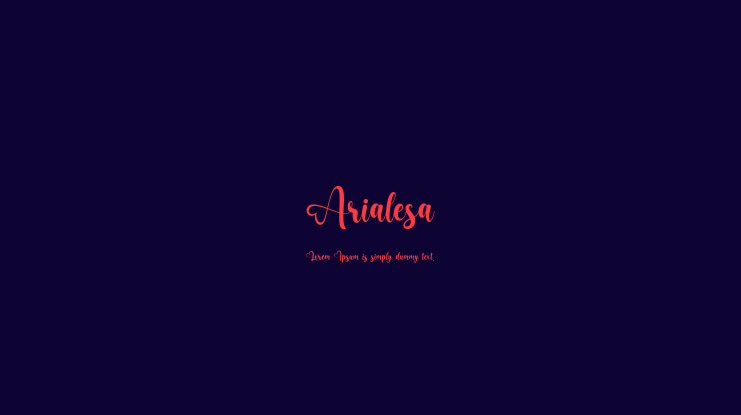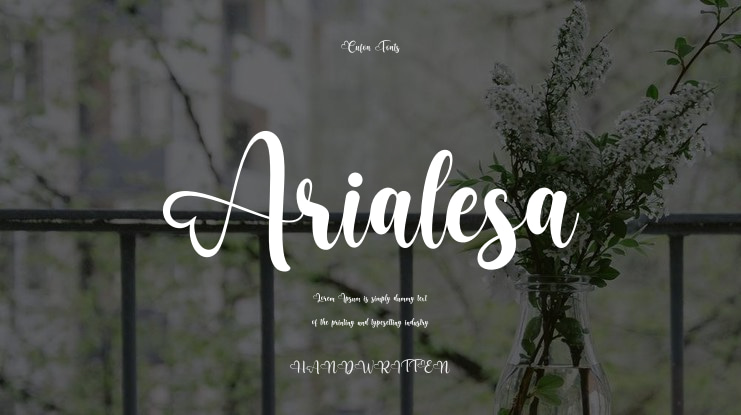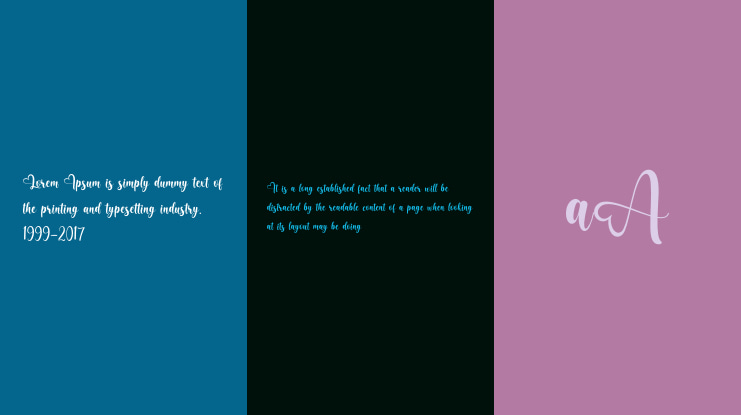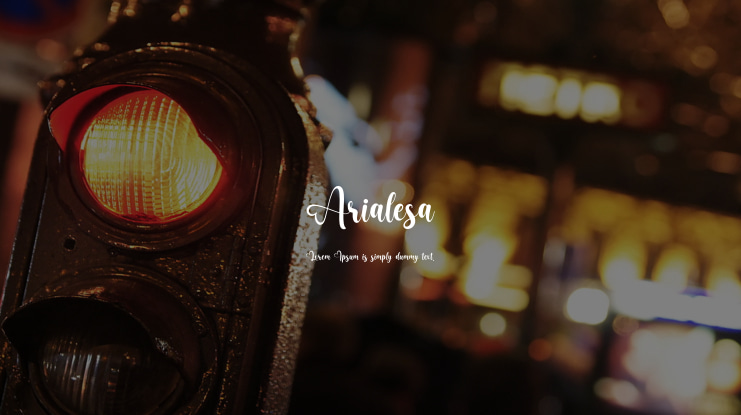
Arialesa Font
Introducing the Arialesa Handlettering Font
The Arialesa Handlettering Font is crafted with a natural and clean style. You can purchase a commercial license here: [Arialesa Handlettering Font](https://basnistudio.com/product/arialesa-handlettering-font/).
Arialesa font preview